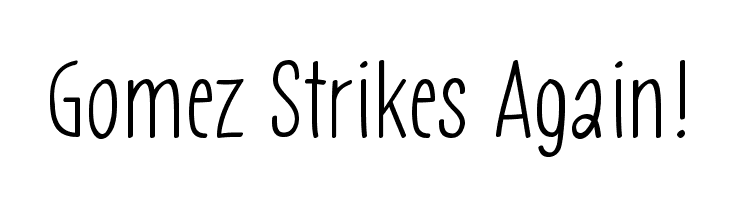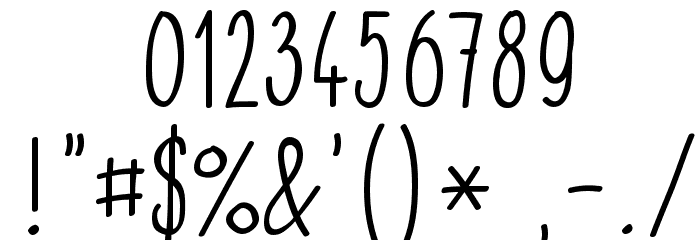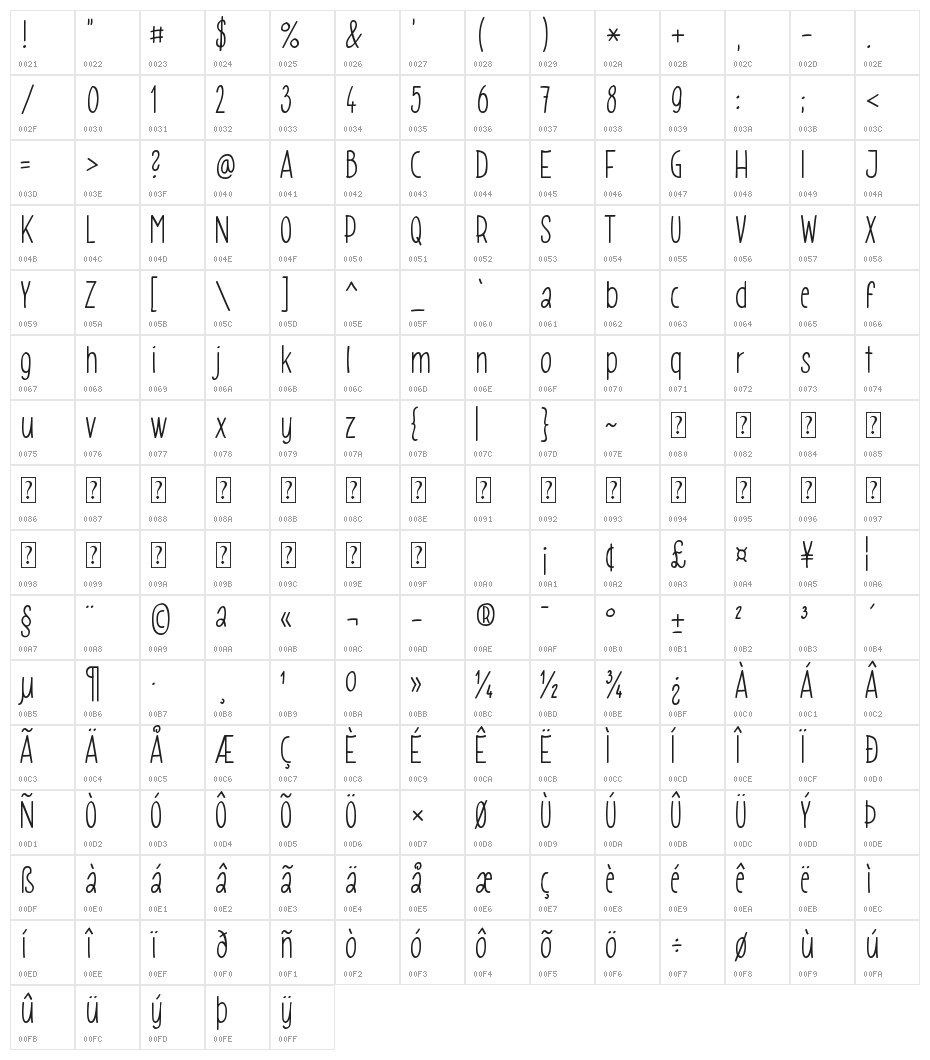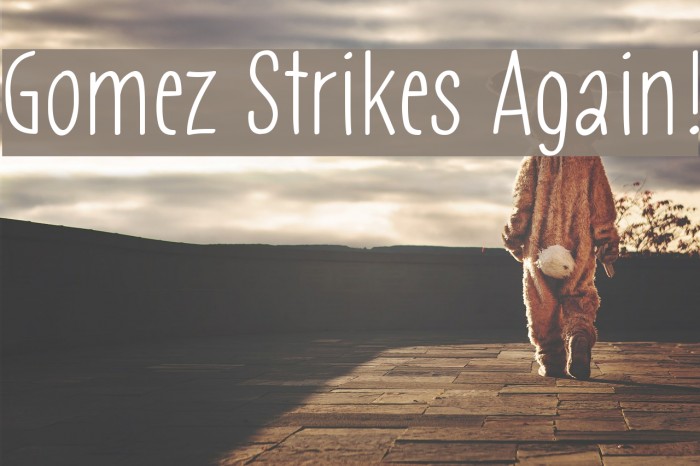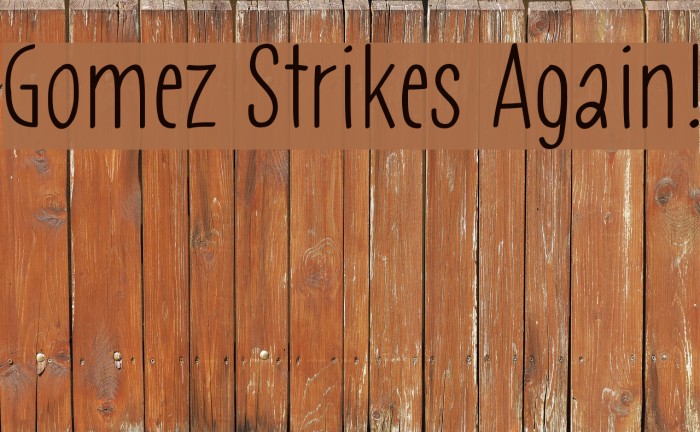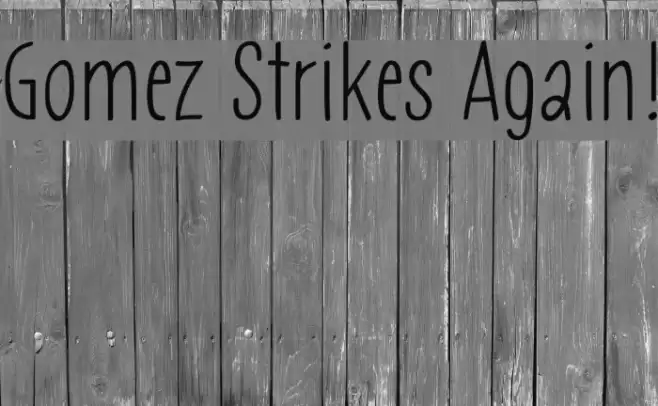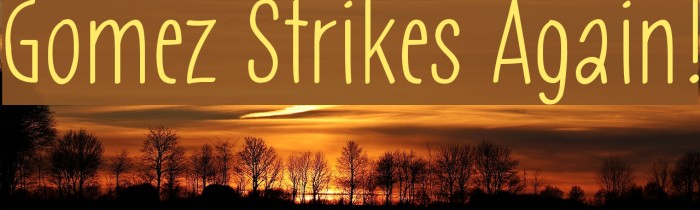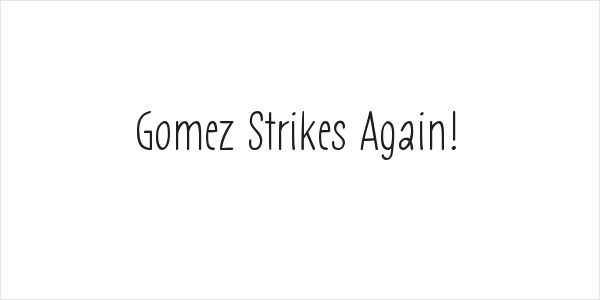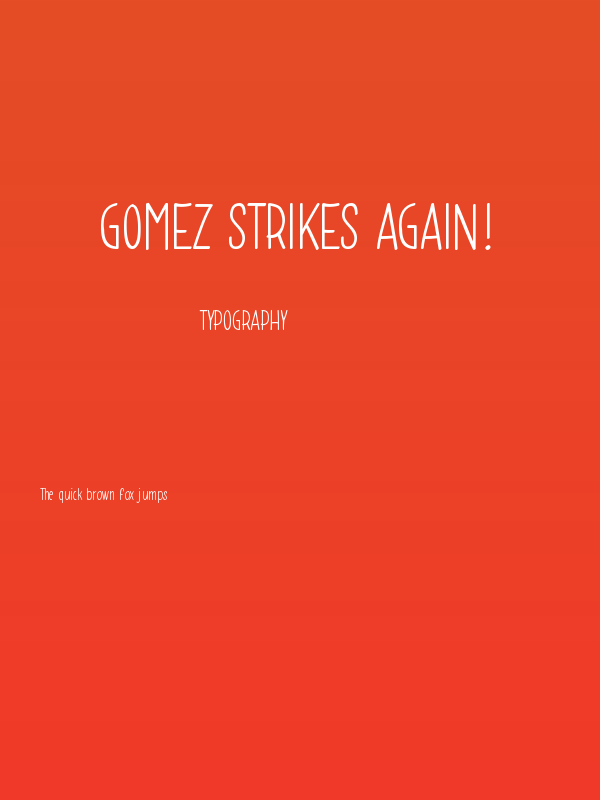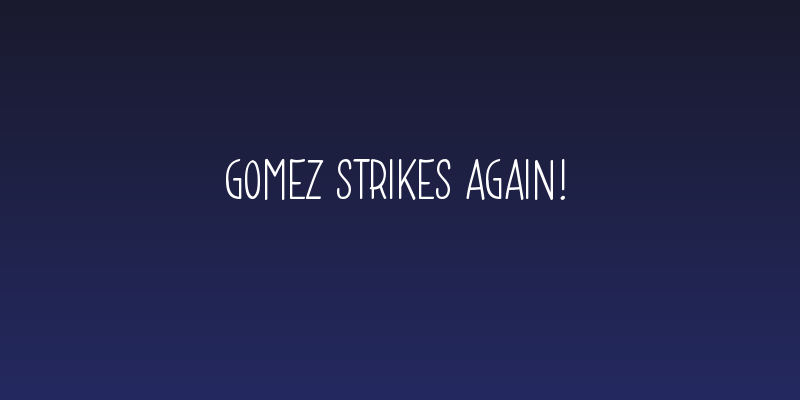
Gomez Strikes Again! Font
Gomez Strikes Again! Description
This font features a playful and whimsical style, characterized by its tall, narrow letterforms and slightly irregular strokes. The uppercase letters are bold and prominent, while the lowercase letters maintain a consistent flow with rounded edges. Numbers are clear and legible, matching the overall aesthetic. Special characters are creatively designed, adding to the font's charm. The font's unique personality makes it suitable for projects that require a touch of fun and creativity.